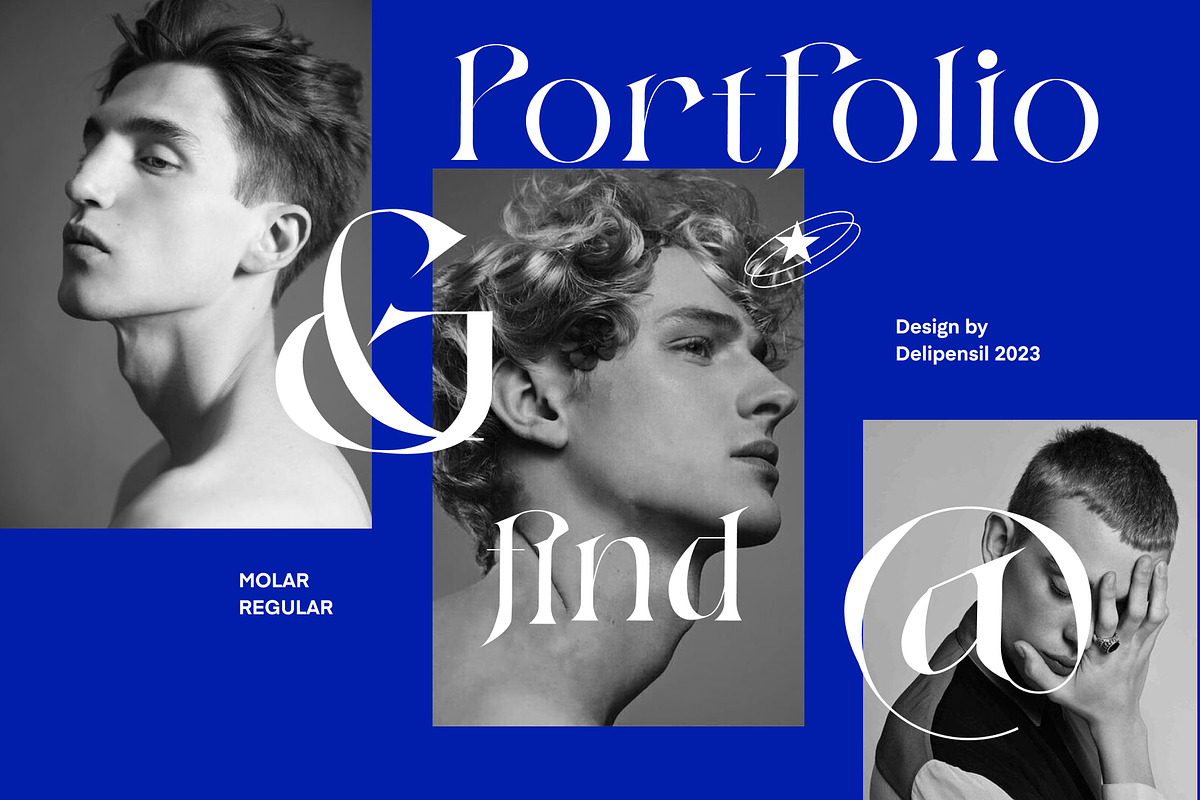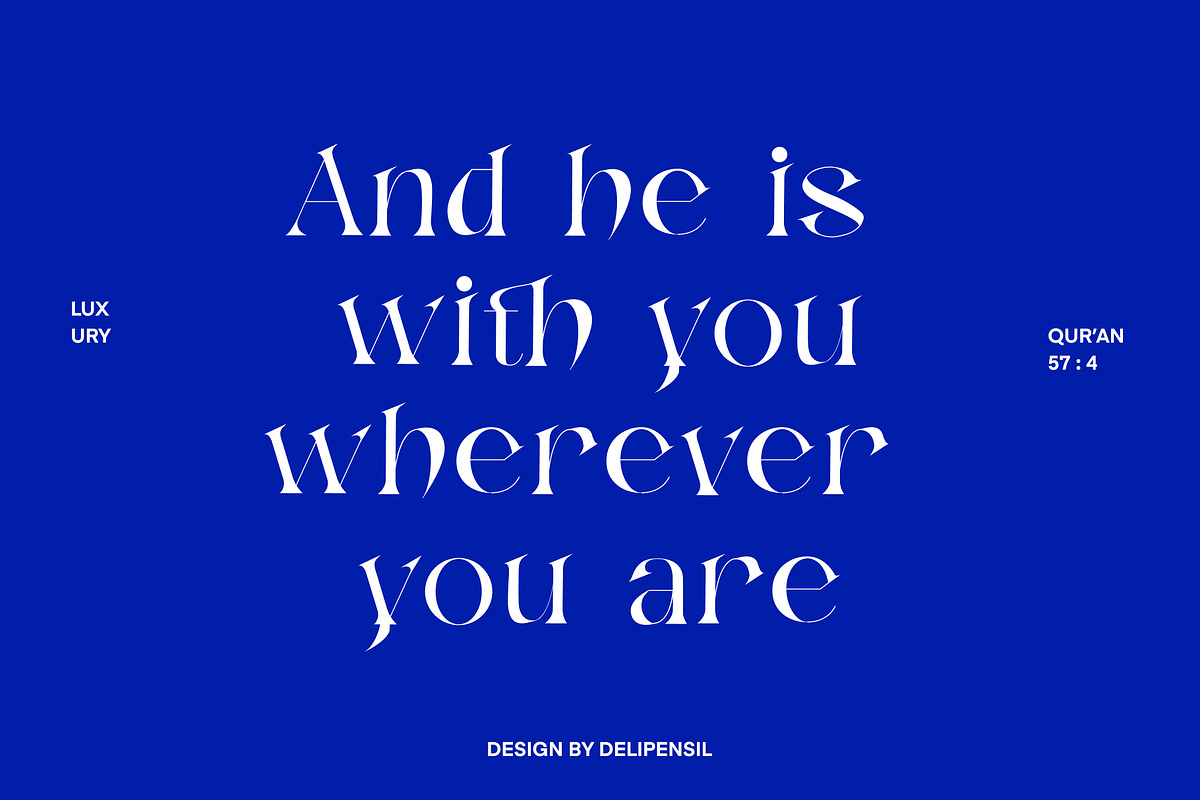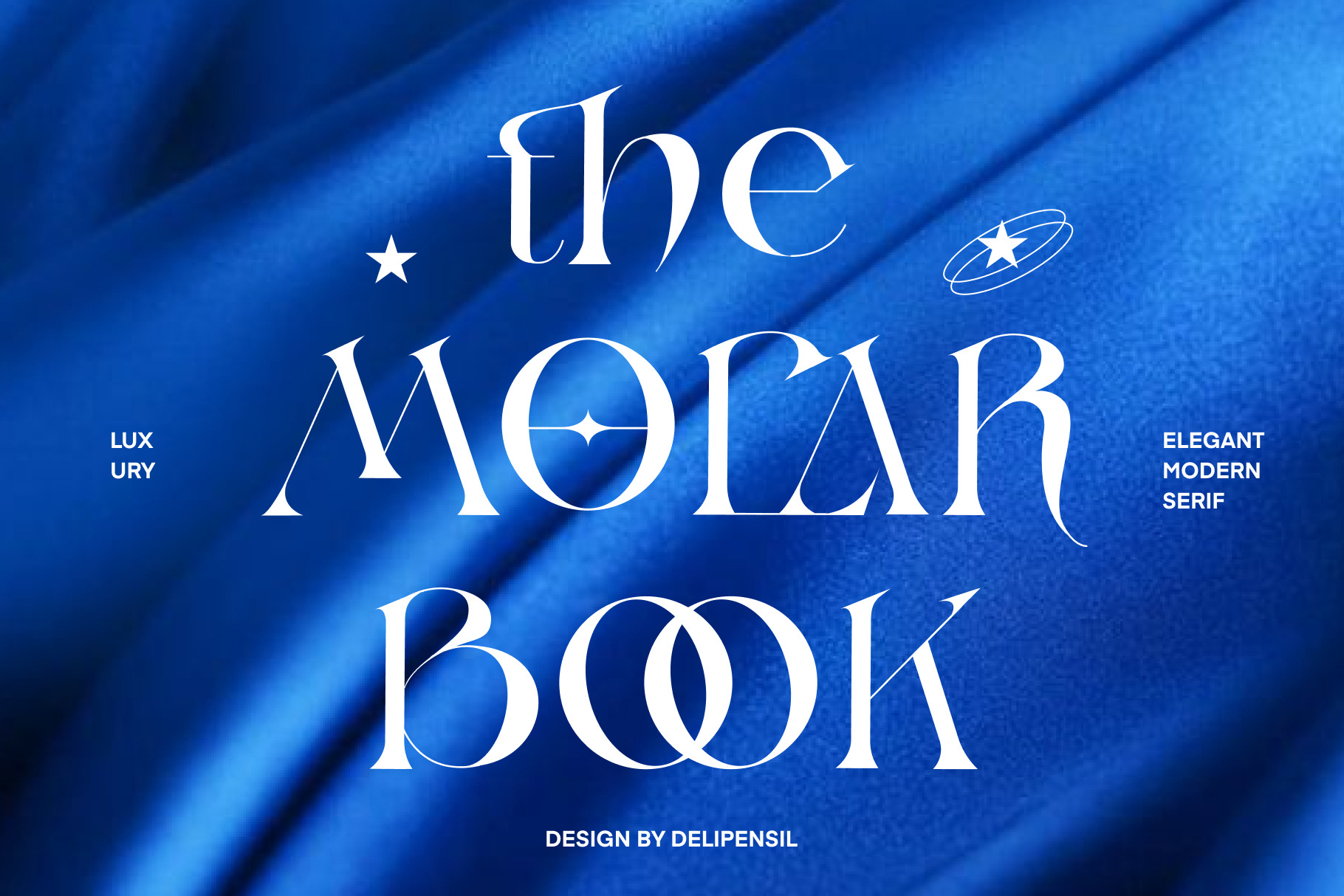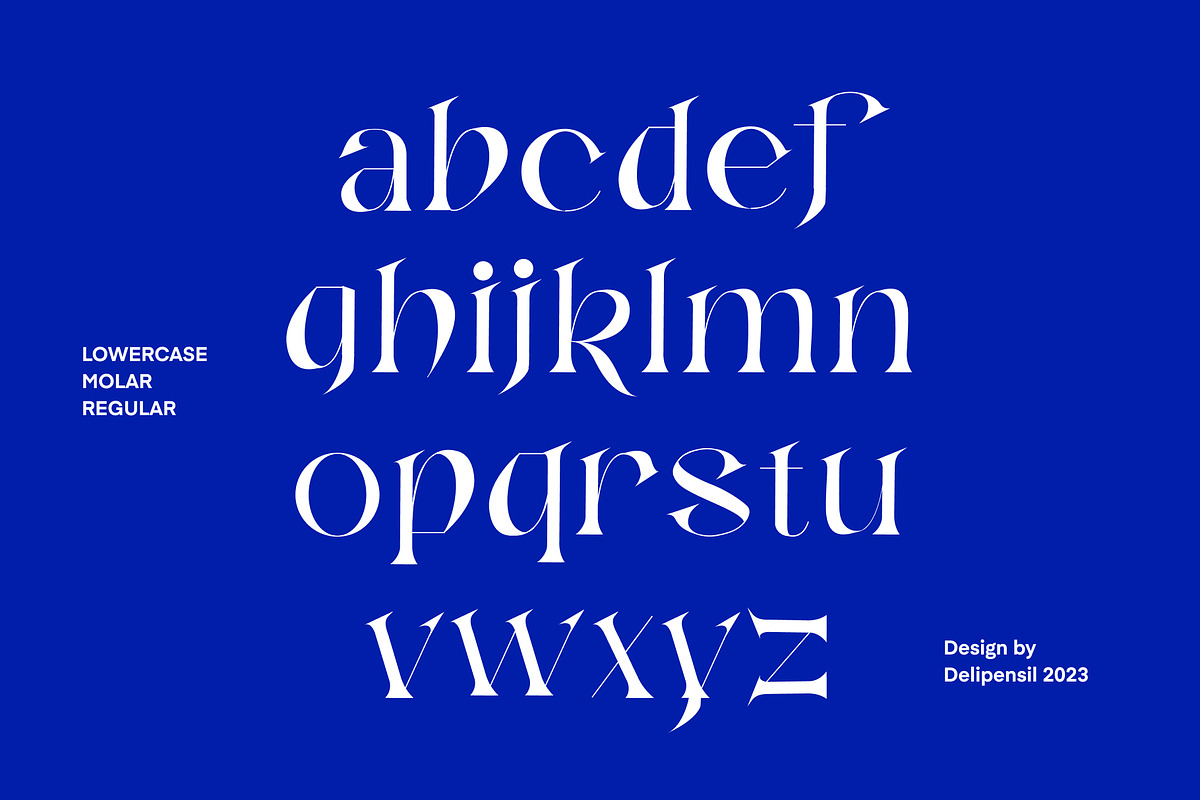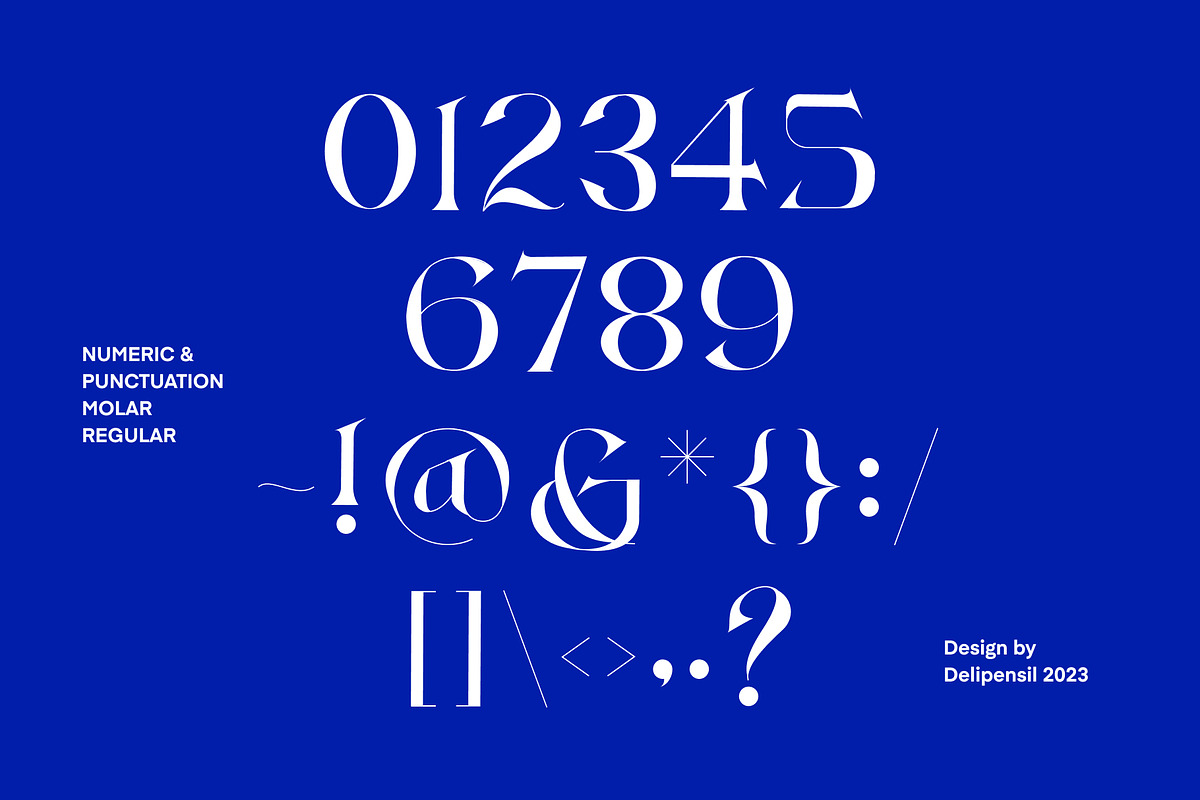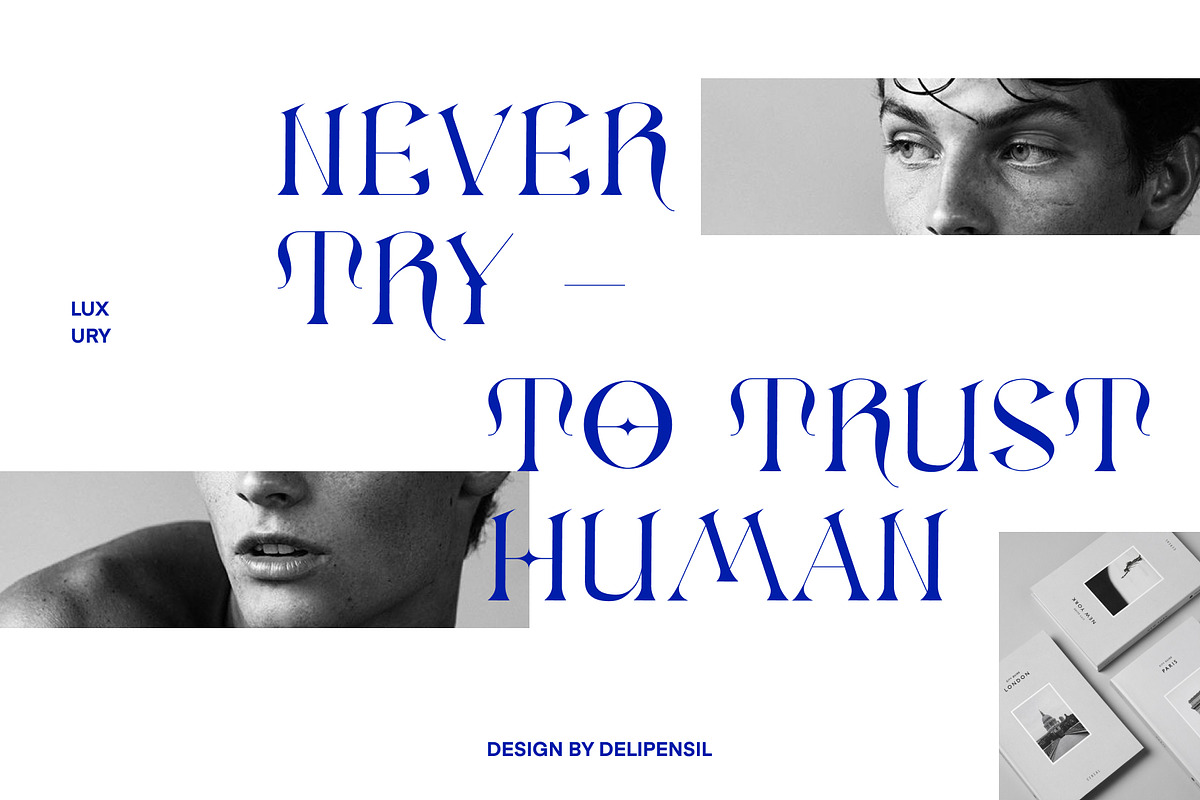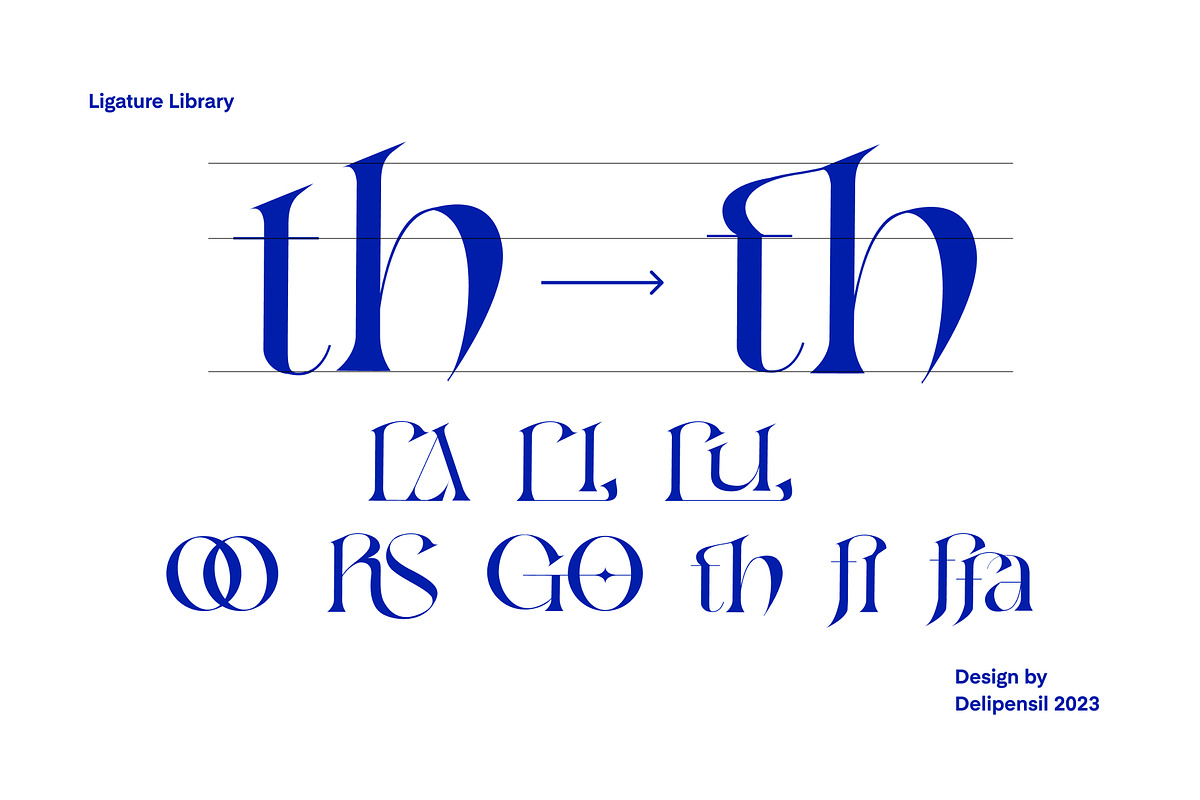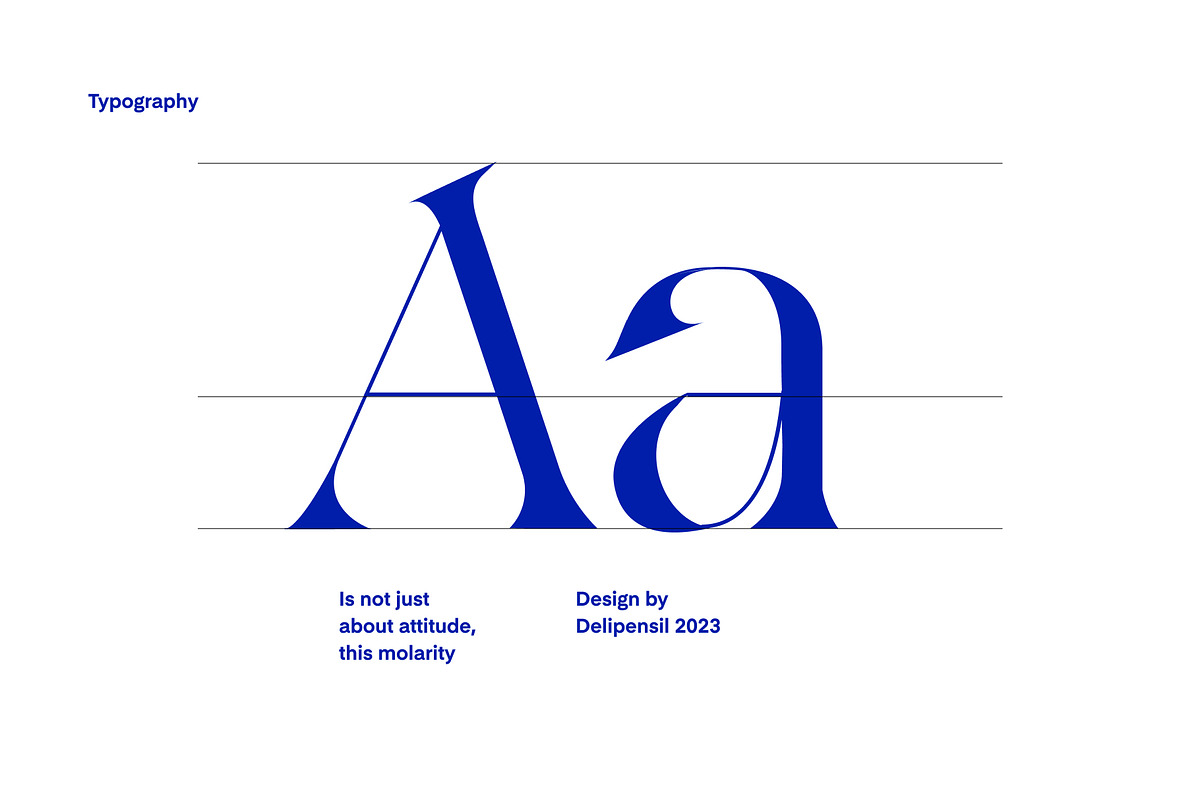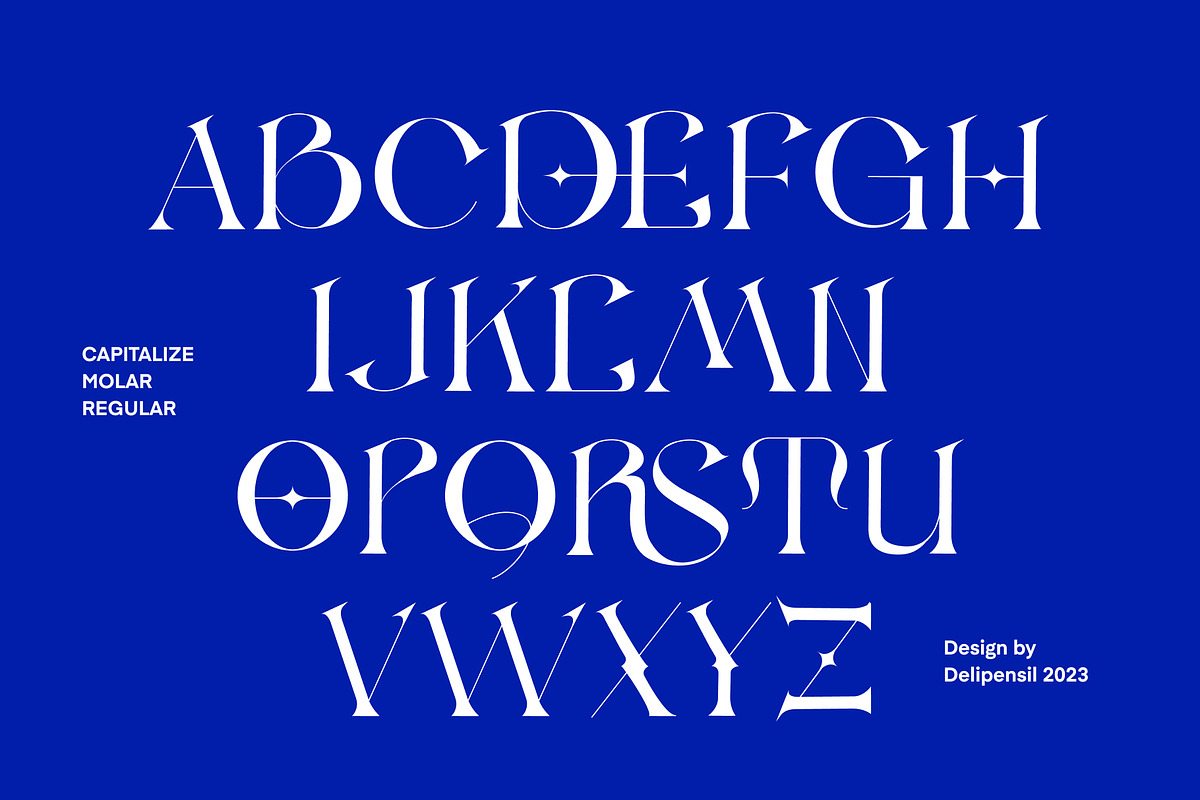
MOLAR - Modern Serif Typeface
Bismillah, MOLAR Book is one Elegant font typeface we have to you, MOLAR have many dictionary ligature to support your Headline, Branding style, Luxury product, we combine this font with modern look, and you can use anything size for this font
MOLAR is the best font to fit your website typography, title magazine, and make everything stunning with another, you can get everything on there